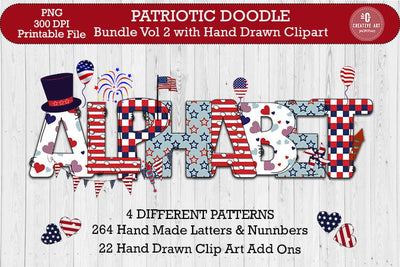
Patriotic Doodle Alpabhet Bundle, 4th of July Alphabet PNG
Patriotic Doodle Alpabhet Bundle, 4th of July Alphabet PNG is a hand-crafted sublimation bundle later it was converted into digital files.